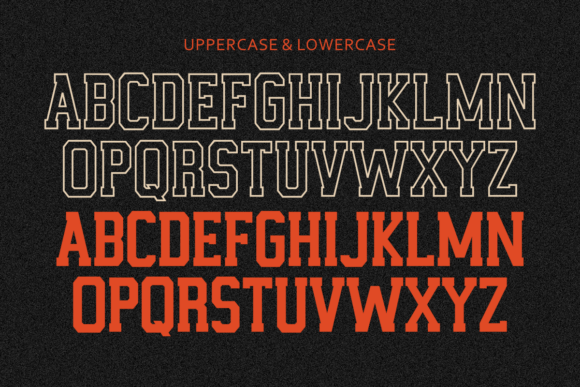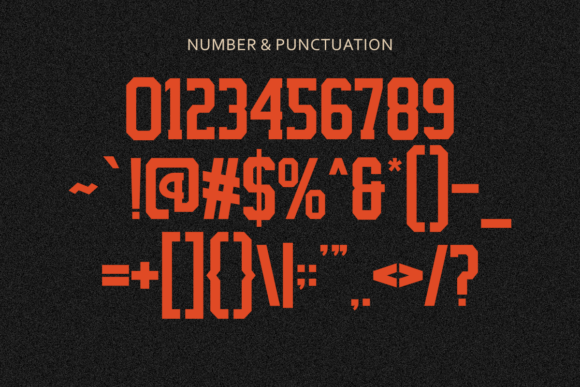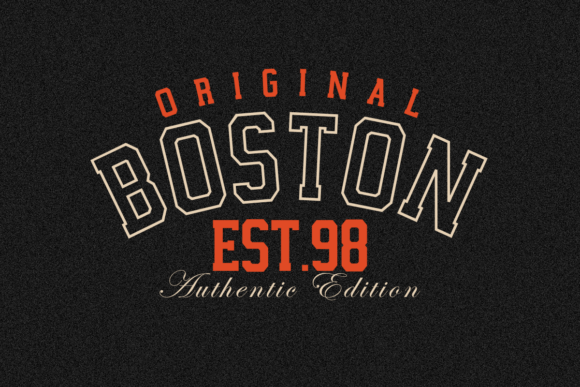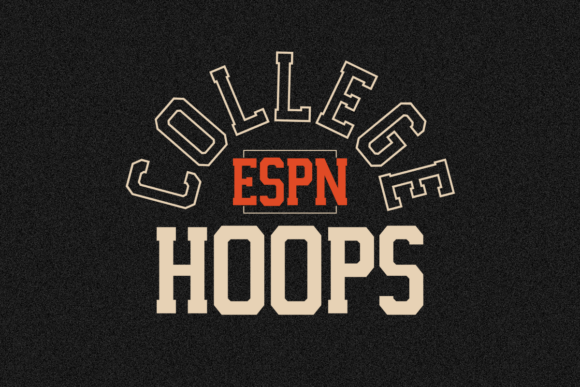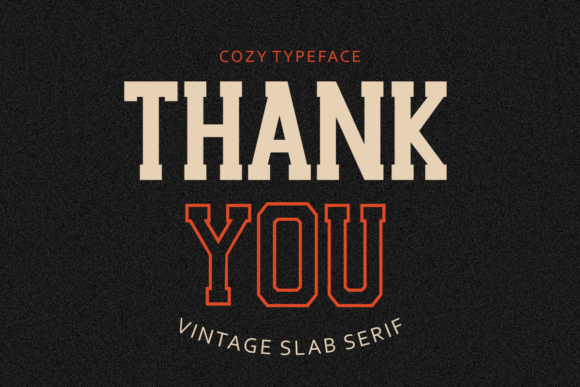
Introducing Cozy Font: The Ultimate Vintage Slab Serif for Modern Designs
Are you tired of using the same old fonts in your designs? Look no further! Cozy font is here to revolutionize your creative projects with its unique blend of vintage charm and modern sophistication. This stunning slab serif font features bold geometric shapes and comes in two versatile styles: regular and outline. Whether you’re working on posters, branding, packaging, or sports designs, Cozy font is the perfect addition to your creative toolbox.
A Retro yet Modern Look
Cozy font boasts a strong retro aesthetic that’s perfect for designers looking to add a touch of nostalgia to their work. The bold geometric shapes and slab serif design evoke a sense of classic Americana, reminiscent of vintage posters and advertisements from the 1950s and 60s. However, despite its retro roots, Cozy font also has a distinctly modern feel that will make your designs stand out in a crowded marketplace.
One of the best things about Cozy font is its versatility. The font comes in two styles: regular and outline. The regular style is perfect for bold, eye-catching designs, while the outline style offers a more subtle, sophisticated look. This means you can use Cozy font in a wide range of applications, from editorial layouts to creative merchandise. Whether you’re designing a poster, a logo, or a product label, Cozy font is the perfect choice.
Cozy font is a must-have for designers and crafters looking to add a unique touch to their work. The font’s vintage charm and modern sophistication make it perfect for a wide range of projects, including:
- Posters: Cozy font is perfect for creating eye-catching posters that grab attention.
- Branding: Use Cozy font to create a bold, memorable brand identity.
- Packaging: Add a touch of vintage charm to your product packaging with Cozy font.
- Sports designs: Cozy font is perfect for creating bold, dynamic sports designs.
Why Choose Cozy Font?
So why choose Cozy font over other fonts on the market? Here are just a few reasons:
- Unique design: Cozy font features a unique blend of vintage charm and modern sophistication.
- Versatility: The font comes in two styles: regular and outline.
- Timeless appeal: The font’s vintage charm ensures it will remain timeless and relevant for years to come.
Tips for Using Cozy Font
Here are a few tips for getting the most out of Cozy font:
- Experiment with different sizes: Cozy font looks great in a wide range of sizes, from small captions to large headlines.
- Pair with other fonts: Try pairing Cozy font with other fonts to create a unique, eye-catching look.
- Use in combination with images: Cozy font looks great when used in combination with images, especially vintage-style graphics.